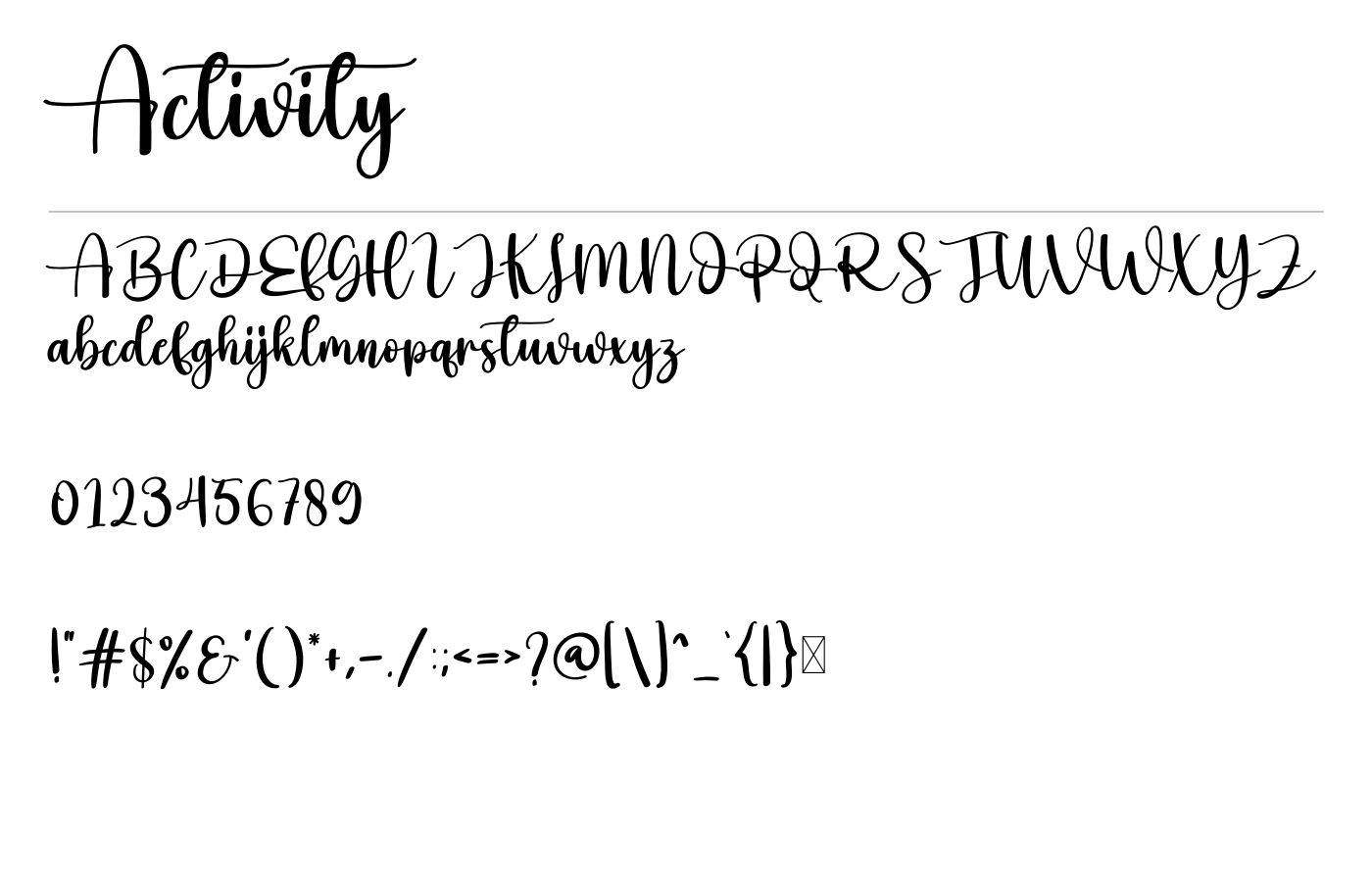
Activity Font is a lively and elegant script typeface with a charming handwritten style. Its smooth, flowing strokes and moderate contrast give it a playful yet refined personality, making it perfect for creative branding, invitations, and modern lifestyle projects that seek a friendly and personal touch. This font works well in headlines and logos where a sense of warmth and approachability is desired.
Activity Font